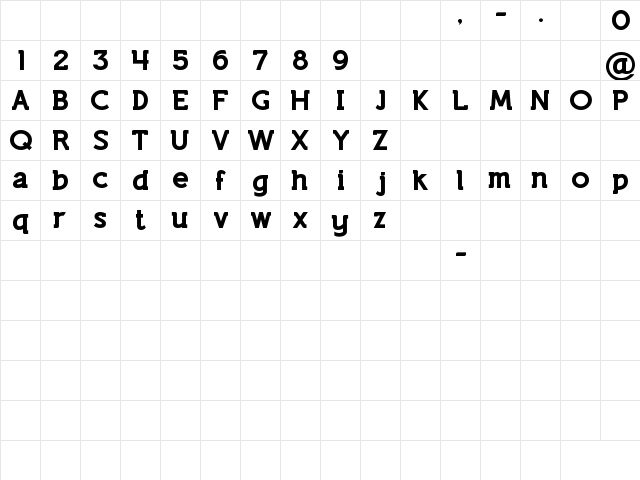
Lifestyle Rounded M54 Regular
| Foundry | M54 (justme54s) |
| Designer | Mohammed Rahman |
| Year | 2010 |
Design Context for Lifestyle Rounded M54 Typeface
Lifestyle Rounded M54 uses gentle rounded endings to create a warm, inviting typographic personality — less corporate than geometric sans, more refined than playful display fonts.
A natural fit for tech startups, health and wellness brands, children's products, and friendly consumer apps.
Font Pairing: Pairs well with a rounded or humanist sans for body copy, maintaining the friendly tone without relying on Lifestyle Rounded M54 to carry extended reading.
Pro Tip: Pair Lifestyle Rounded M54 with a geometric sans for a balanced system — the rounded softness works as a warm counterpoint to harder-edged companions.